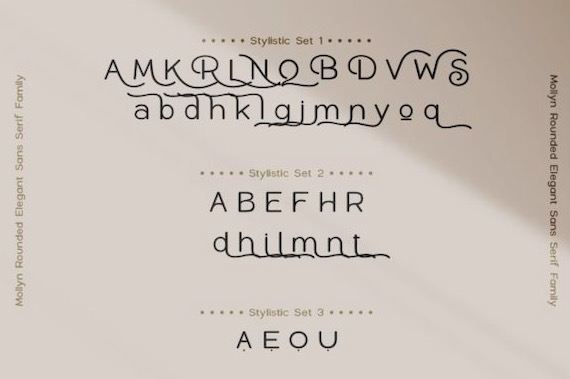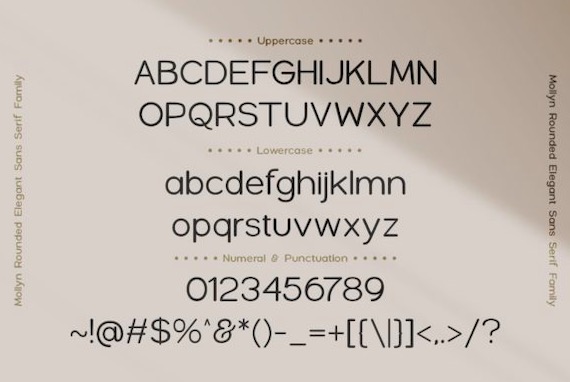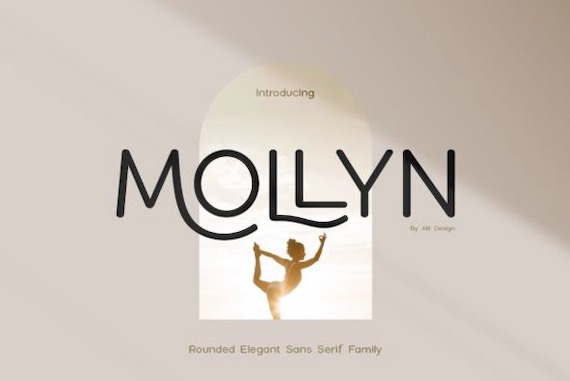
Mollyn is a classy and modern sans serif that was created and shared by Alit Design. This basic font will add a classy spark to any design project that you wish to create! Mollyn font is PUA encoded which means you can access all of the amazing glyphs and ligatures with ease!
Mollyn Sans Serif Font